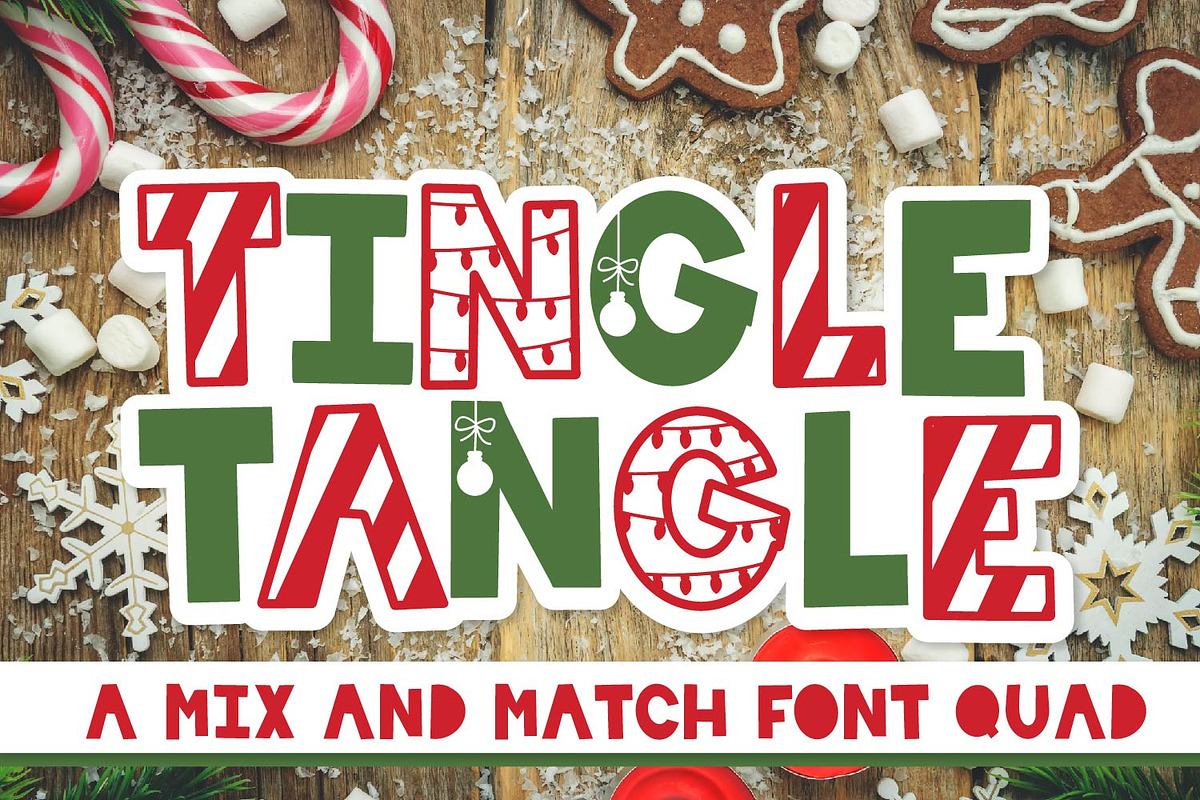
Tingle Tangle - Christmas Font Quad Free Download
Tingle Tangle - Christmas Font Quad Free Download is a festive and whimsical typeface bundle that brings the holiday spirit to life. Perfect for Christmas cards, seasonal packaging, event posters, and cozy DIY crafts, this font set combines playful charm with a touch of nostalgia. Each letter is designed to spread cheer and capture the magic of the holidays.
With the Tingle Tangle - Christmas Font Quad Free Download, you get a versatile collection of holiday-themed styles that make your creative projects stand out. From cheerful greetings to decorative labels, this font quad gives you the tools to design with joy and creativity. It’s ideal for anyone looking to create warm, eye-catching holiday visuals.